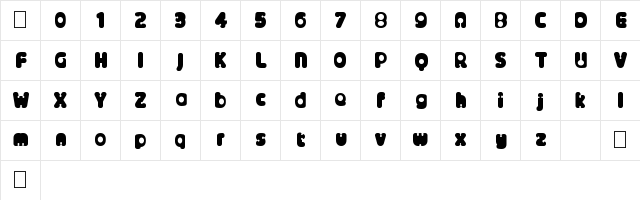
AlternativeNineties Regular Free Font
AlternativeNineties Regular
Foundry: Xerographer Fonts
Designer: Xerographer Fonts Max Infeld
Design Context for AlternativeNineties
AlternativeNineties is a composed and adaptable typeface that performs quietly and consistently across a wide range of design contexts.